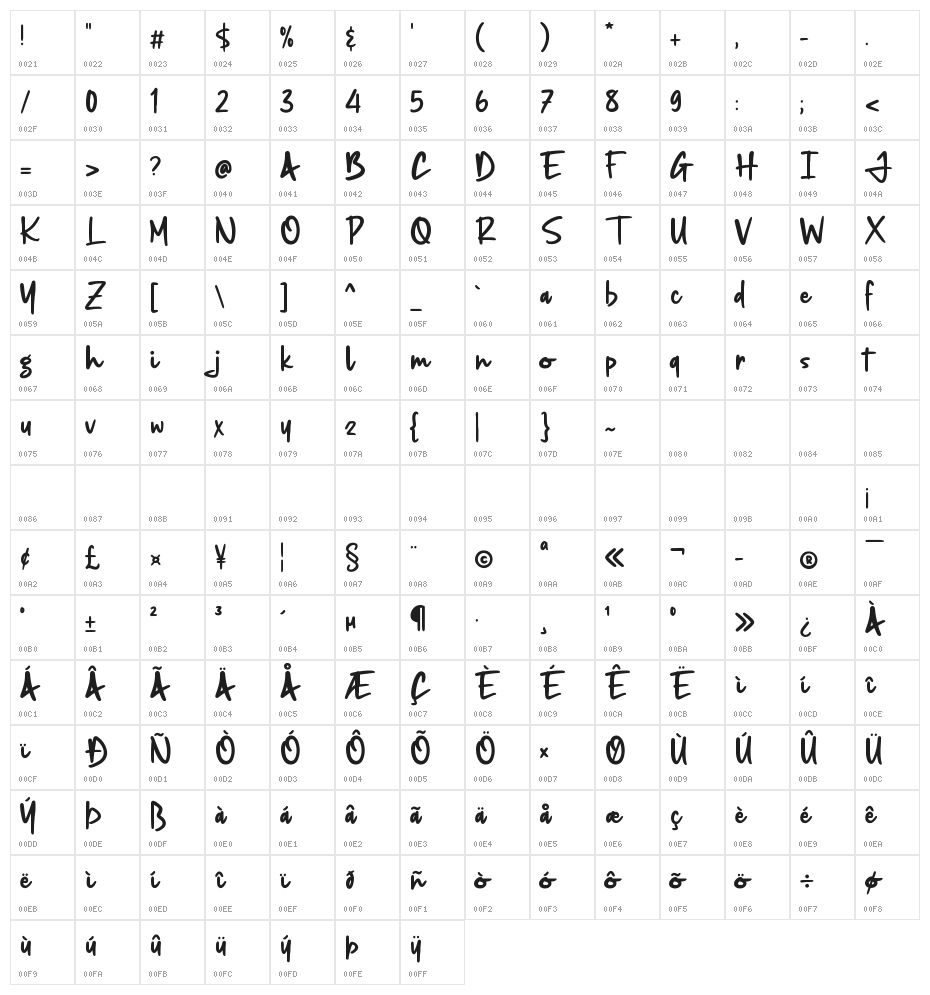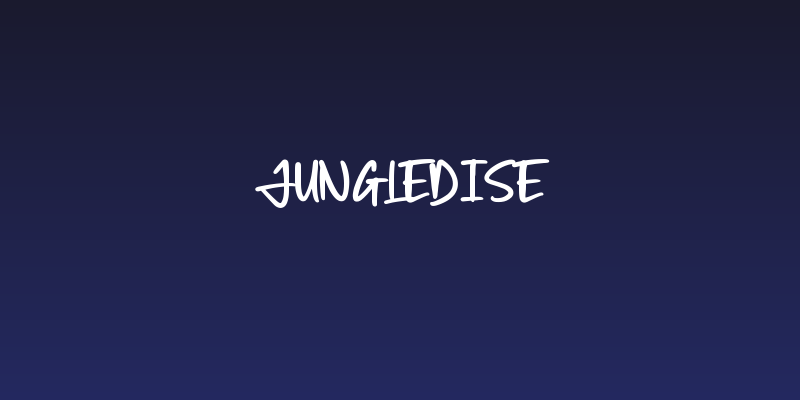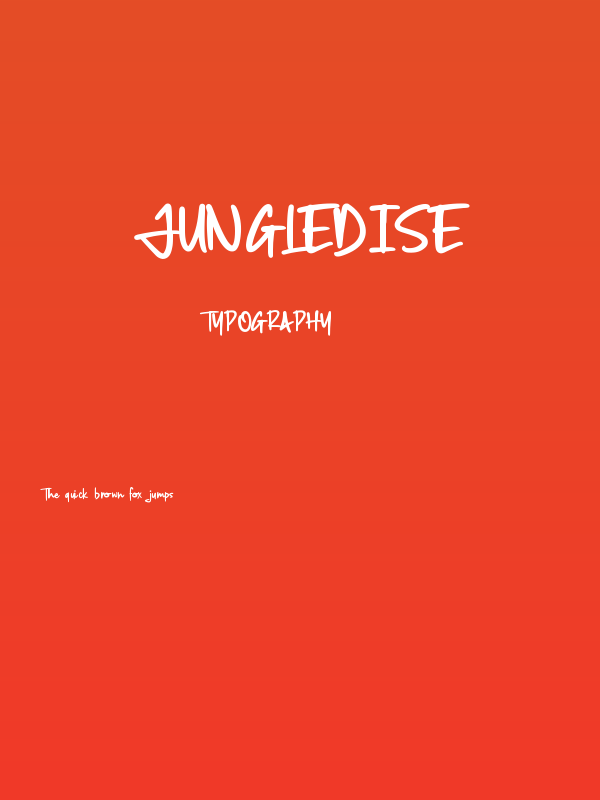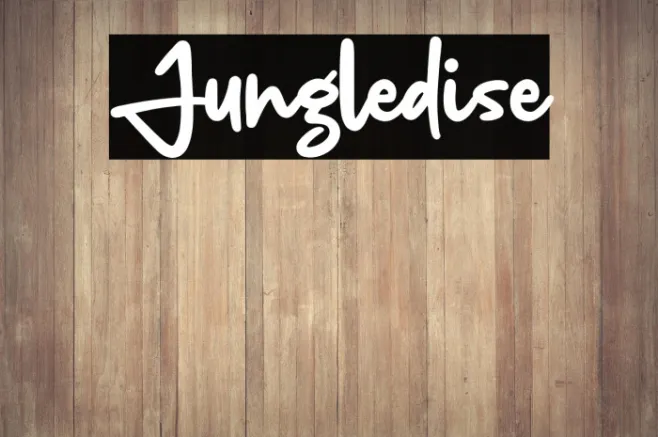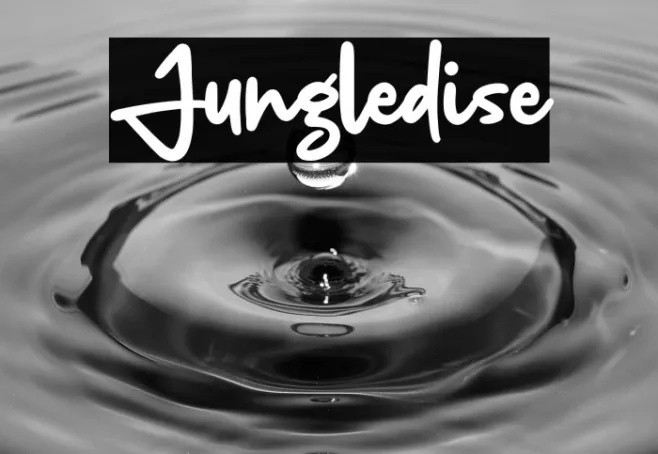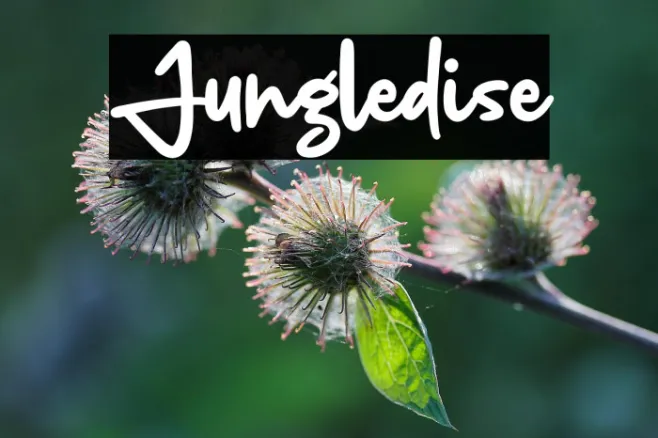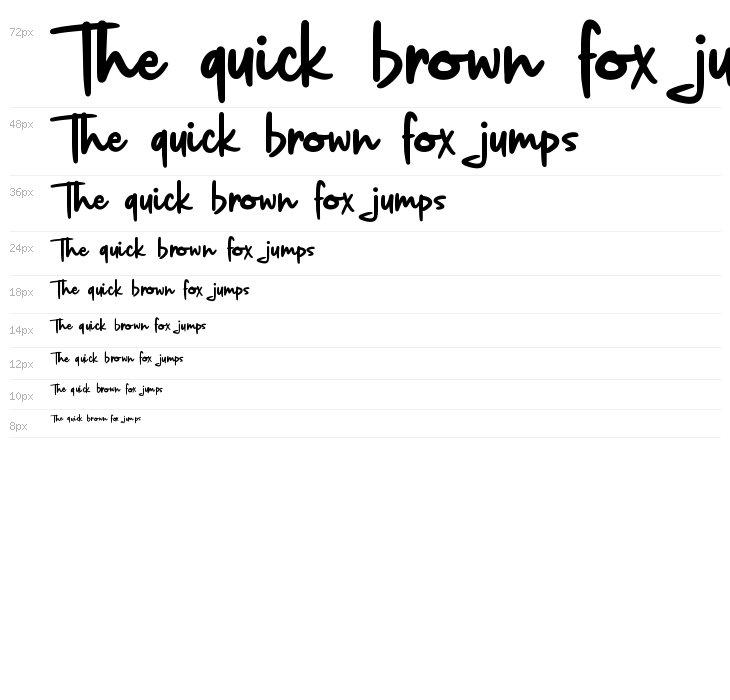
Jungledise Font
Jungledise Description
This font features a playful and energetic handwritten style, characterized by its bold and dynamic strokes. The letters are slightly slanted, giving a sense of movement and spontaneity. The uppercase and lowercase letters maintain a consistent flow, with rounded edges and a casual feel. The numbers and special characters are equally expressive, complementing the overall lively aesthetic. This font is perfect for projects that require a personal touch or a fun, informal vibe.
| Proposed Projects | Ideal for greeting cards, children's books, playful branding, and social media graphics. |